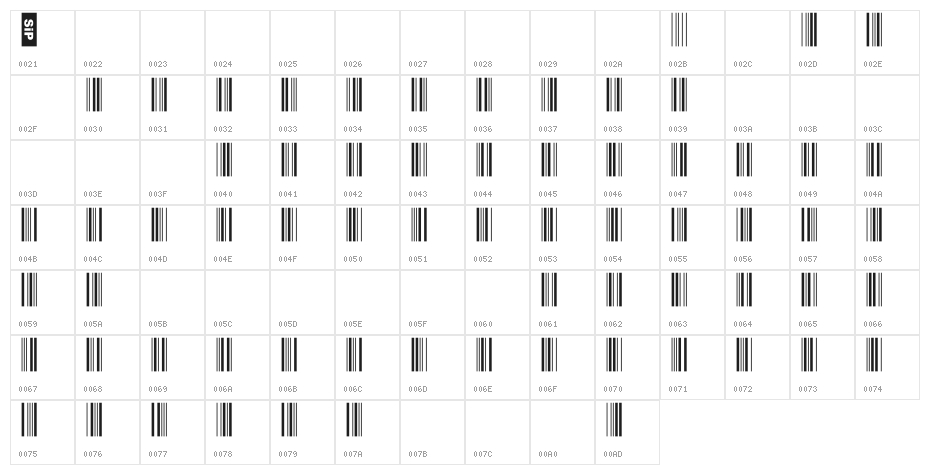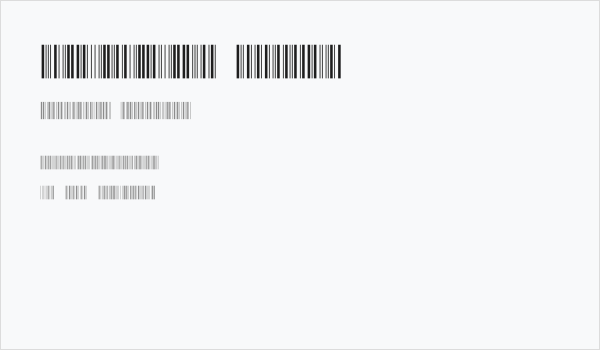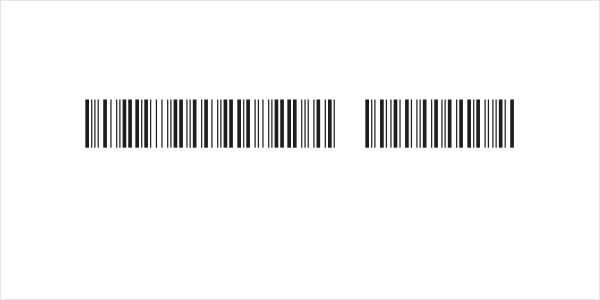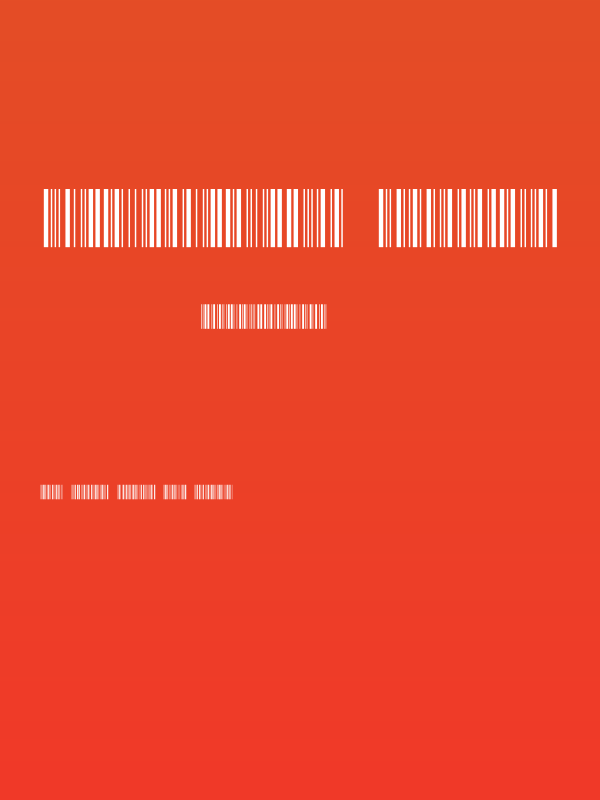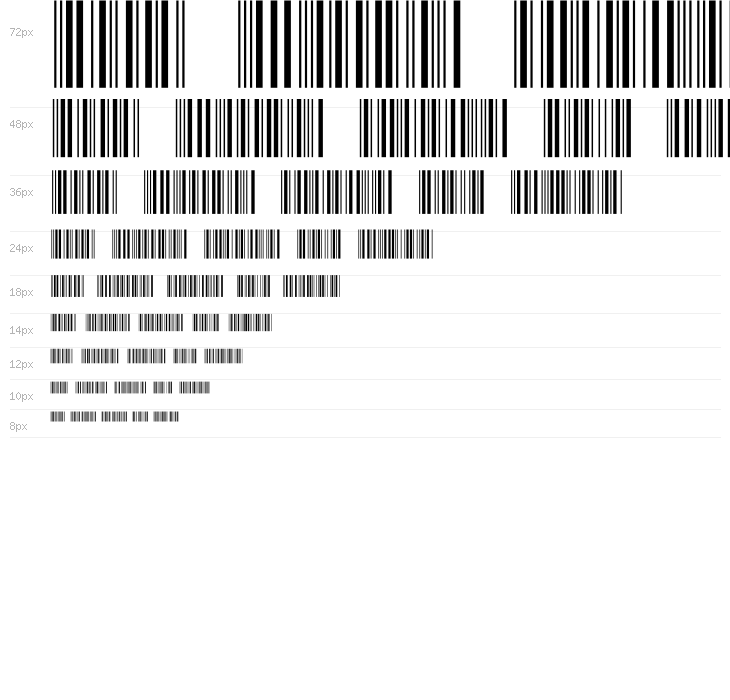
K-O-D-E-39 Hidden Font
K-O-D-E-39 Hidden Description
A barcode-inspired font with monospaced, geometric letterforms composed of vertical bars, mimicking the visual language of barcodes. The characters are constructed with consistent stroke thickness and spacing, resulting in a highly stylized and abstract appearance.
| Overall Style | Modern, Experimental, Futuristic |
| Use Case | Logos, Headlines, Posters, Branding |
| Proposed Projects | Tech branding, futuristic posters, data visualization, packaging, experimental design. |